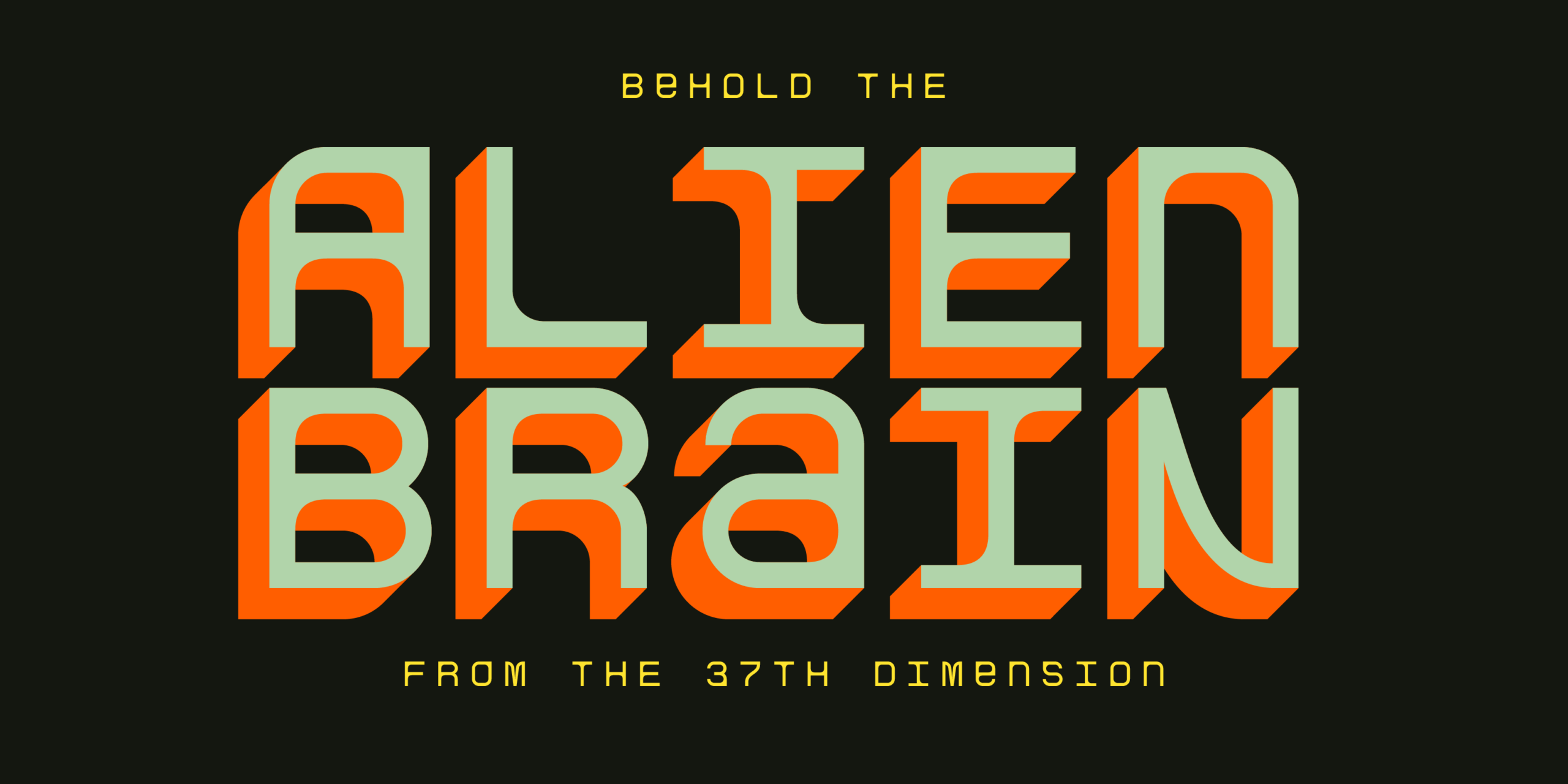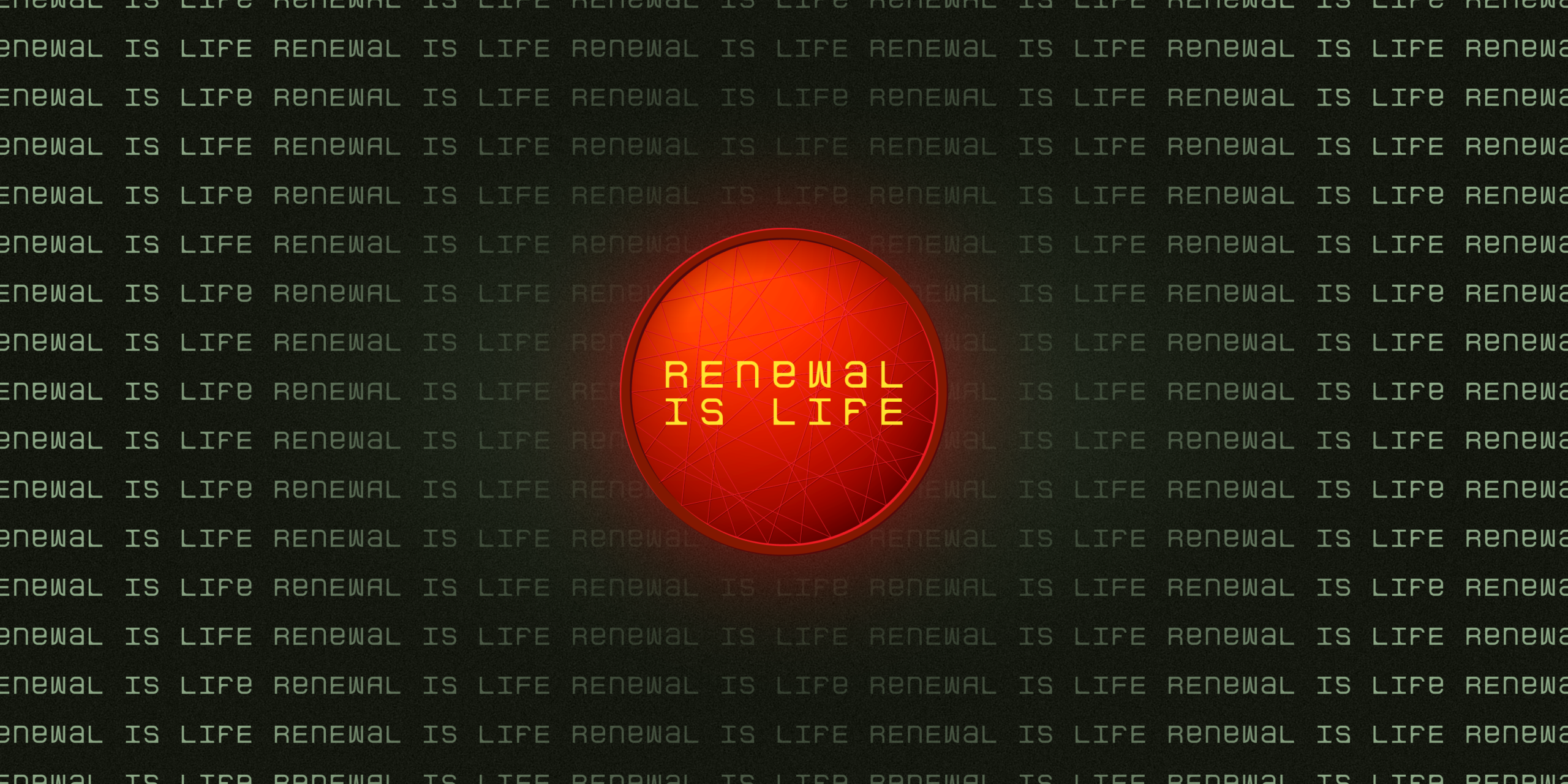
Sandman Retrogram is a monospaced, unicase sci-fi typeface inspired by retro computer terminals and cinematic interface design. Drawing from the restrained geometry of 1970s–80s screen graphics, it blends technical precision with a softened, human touch—resulting in a system type that feels both functional and atmospheric.
Built on a strict grid, Sandman Retrogram maintains consistent rhythm and spacing, making it ideal for UI-inspired layouts, dashboards, HUD graphics, and data-driven compositions. At the same time, its rounded geometry and distinctive unicase structure give it a unique voice for display use, including posters, titles, and sci-fi branding.